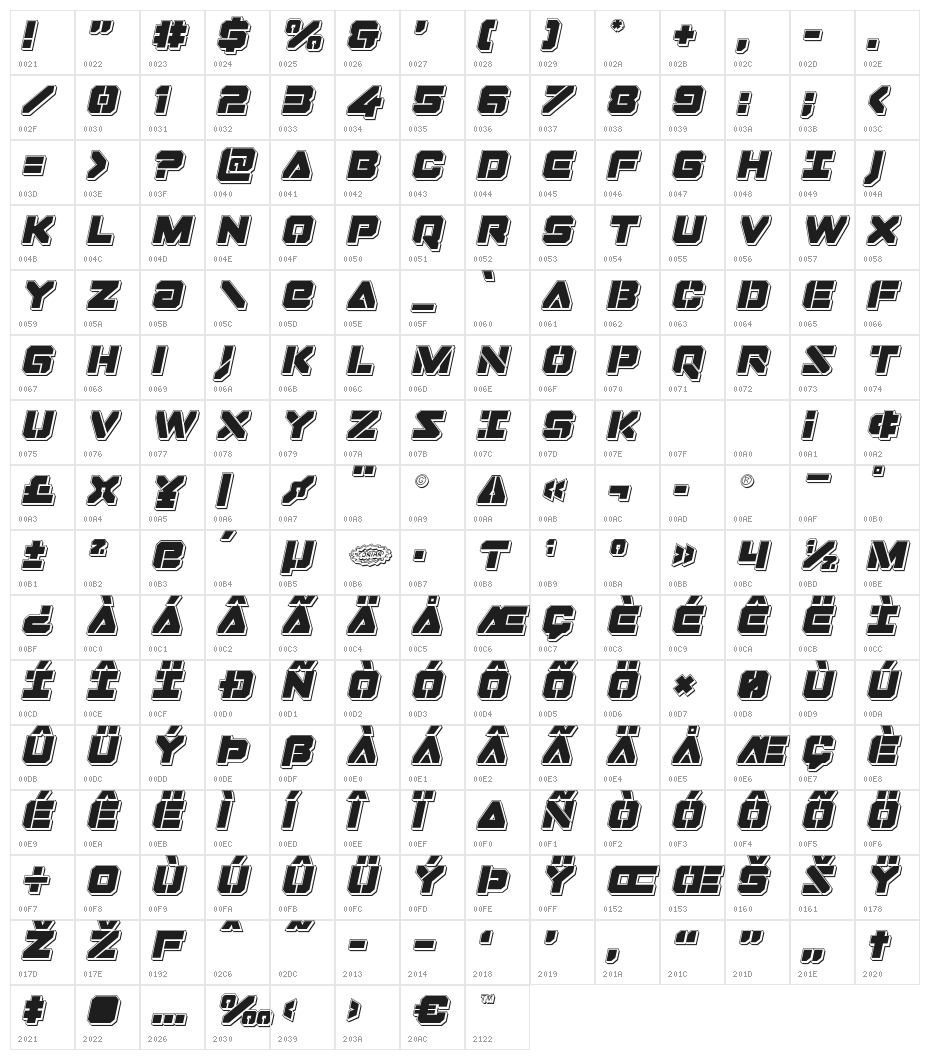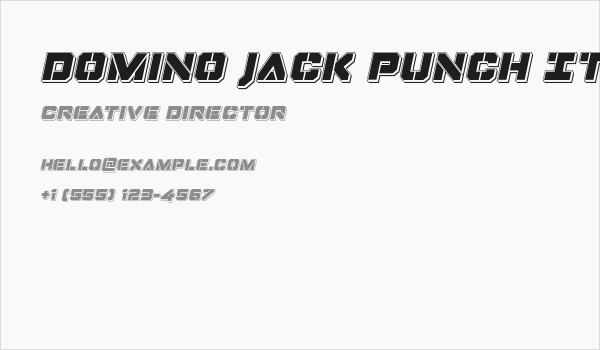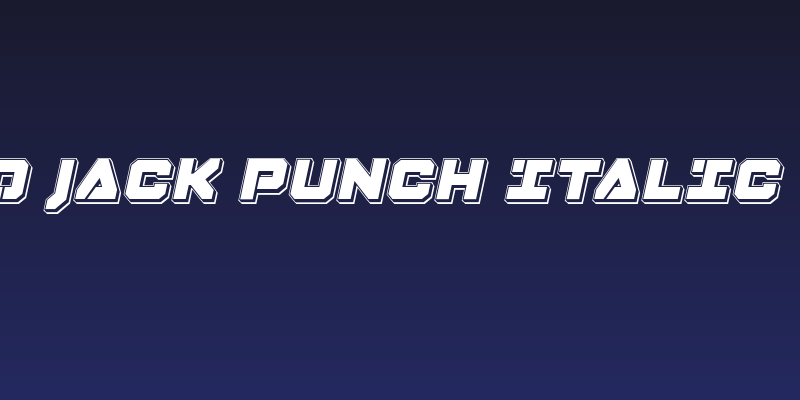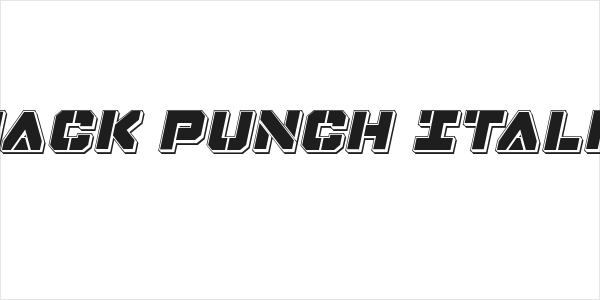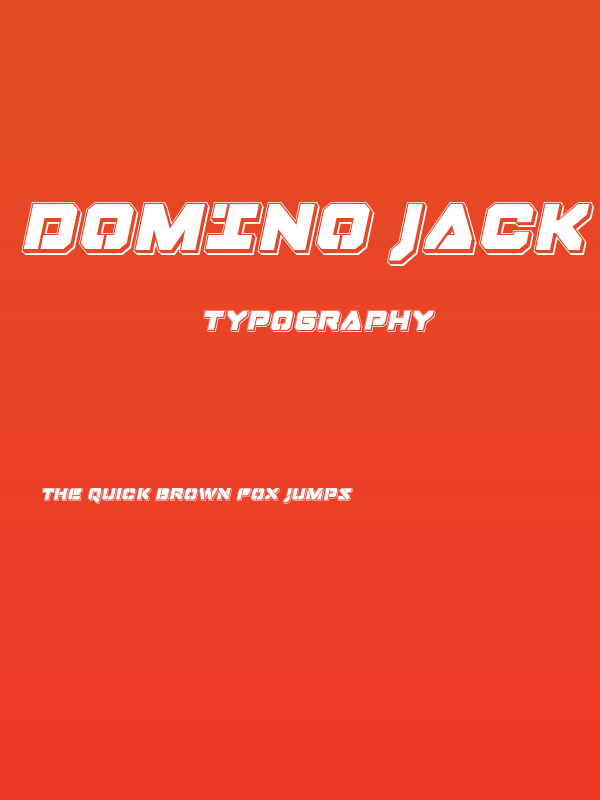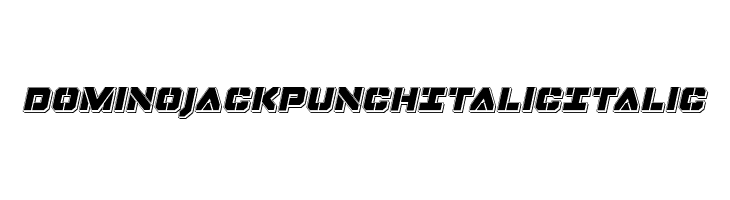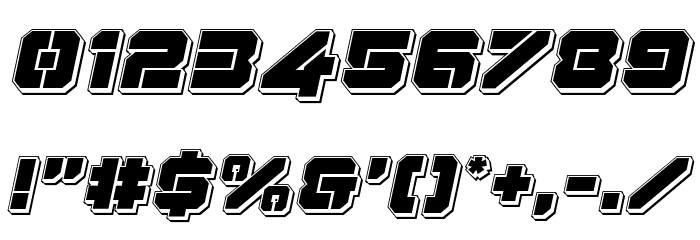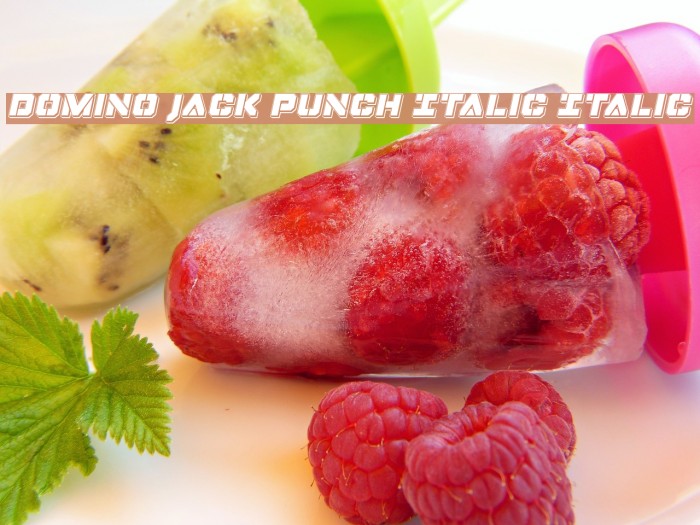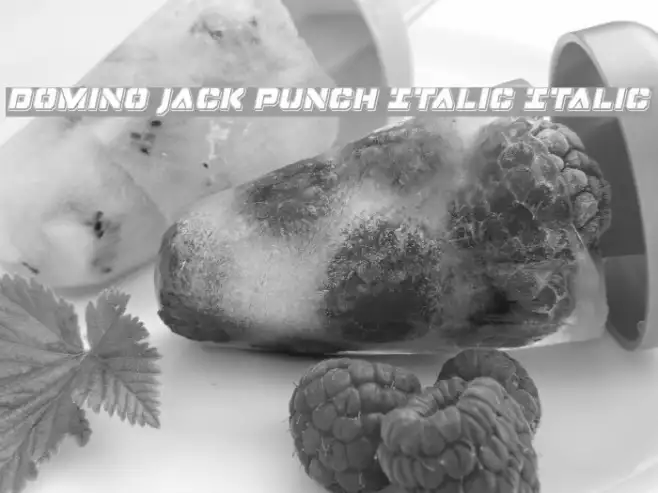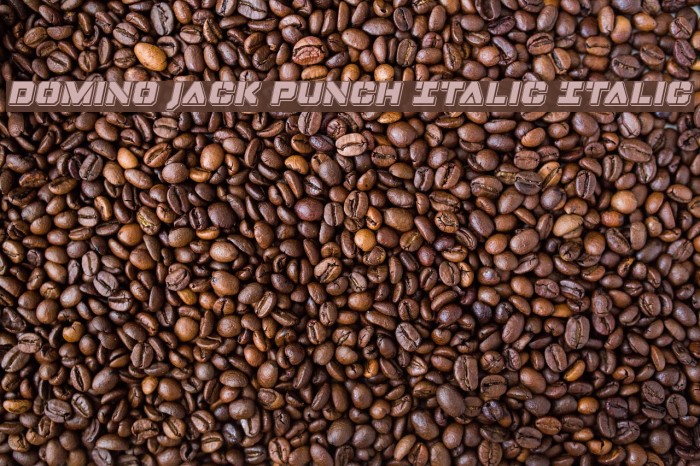
Domino Jack Punch Italic Italic Font
Domino Jack Punch Italic Italic Description
This font features a bold, italicized style with a distinct three-dimensional effect. The characters are outlined, giving them a shadowed appearance that enhances their depth. The uppercase and lowercase letters maintain a consistent geometric structure, with sharp angles and clean lines. The numerals and special characters follow the same design principles, ensuring uniformity across all glyphs. This font's unique style makes it stand out, offering a modern and edgy look that is both eye-catching and versatile.
| Proposed Projects | Ideal for projects requiring a modern and dynamic look, such as sports branding, video game titles, or futuristic posters. |